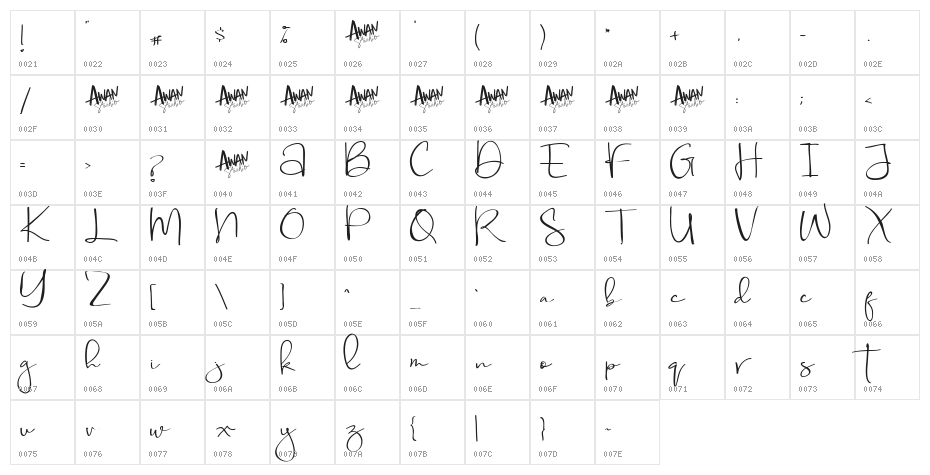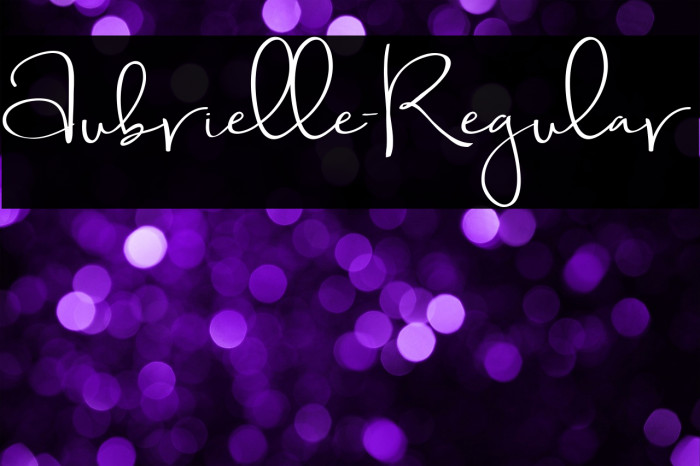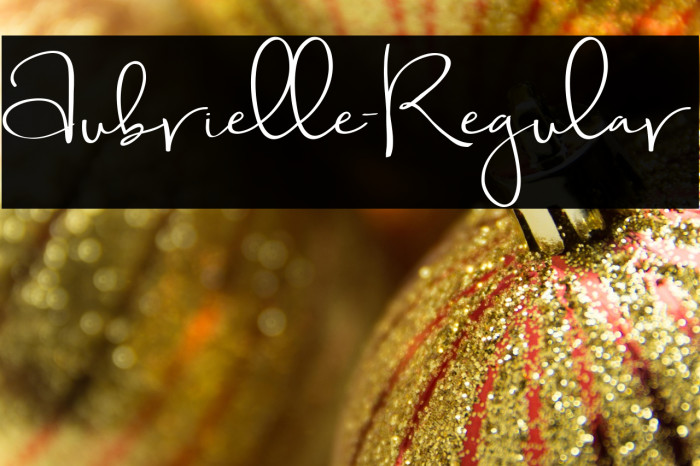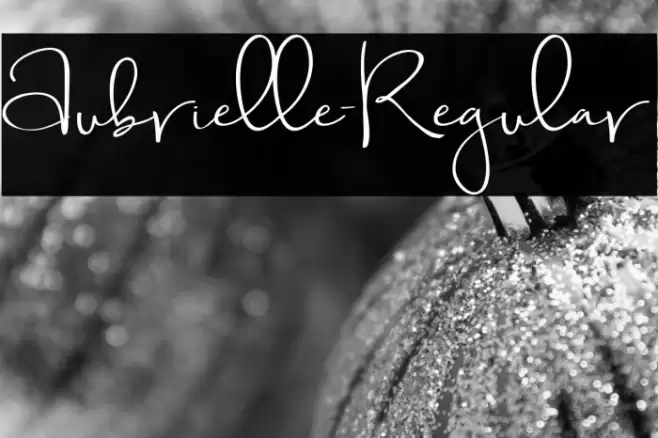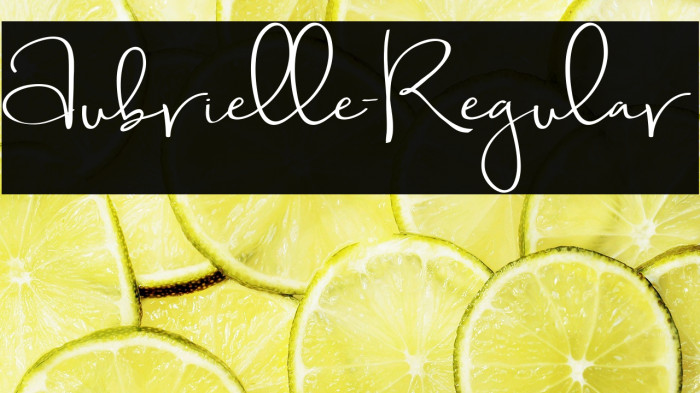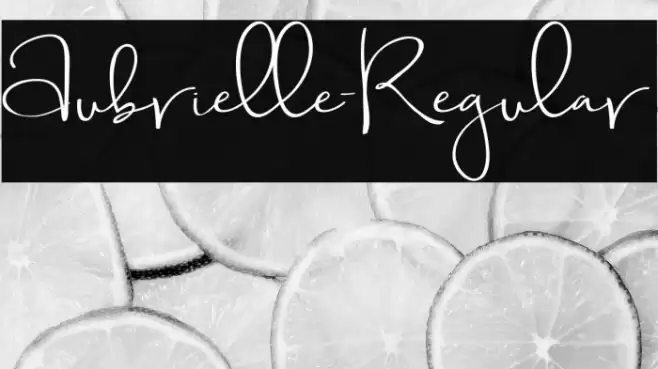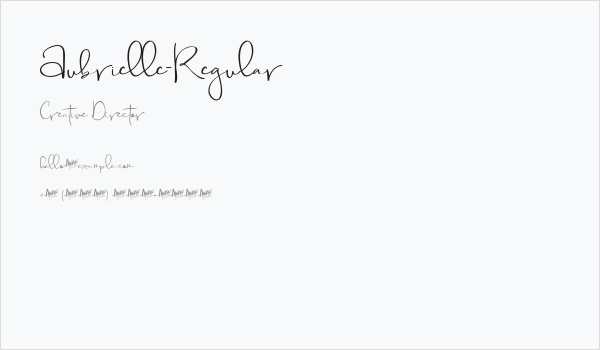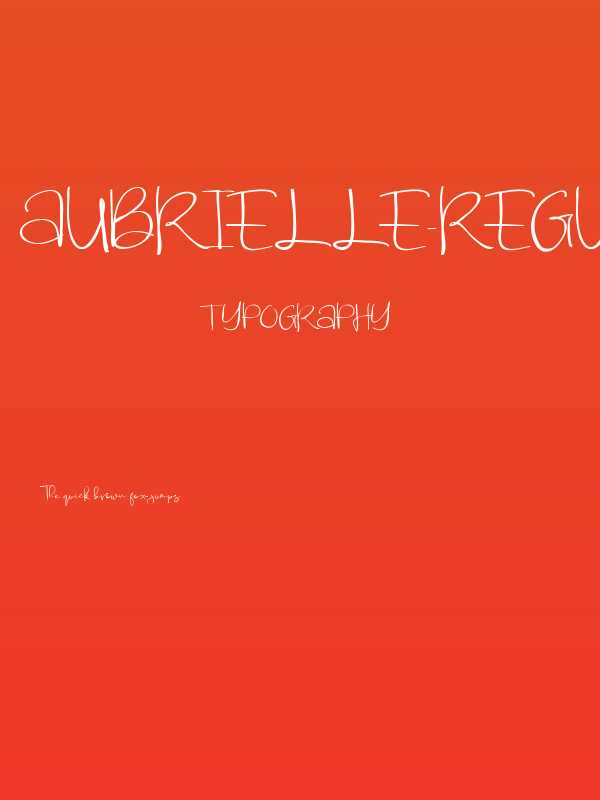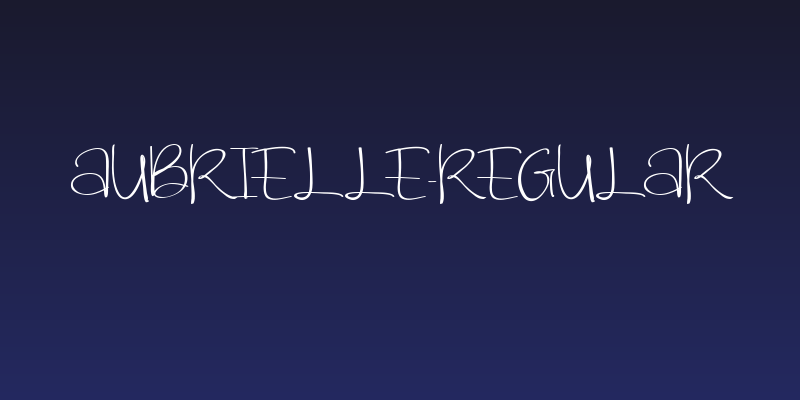
Aubrielle-Regular Description
This font features a playful and whimsical script style, characterized by its flowing, interconnected letters that mimic natural handwriting. The uppercase letters are tall and slender, with a slight slant, giving them an elegant yet casual appearance. The lowercase letters are more rounded and fluid, with some letters featuring loops and swirls that add to the font's charm. The numbers and special characters maintain the same playful style, ensuring consistency across all text. This font's unique style makes it ideal for creative projects that require a personal touch.
| Use Case | Logos, Invitations, Personal projects |
| Proposed Projects | Ideal for wedding invitations, greeting cards, branding, and social media graphics. |